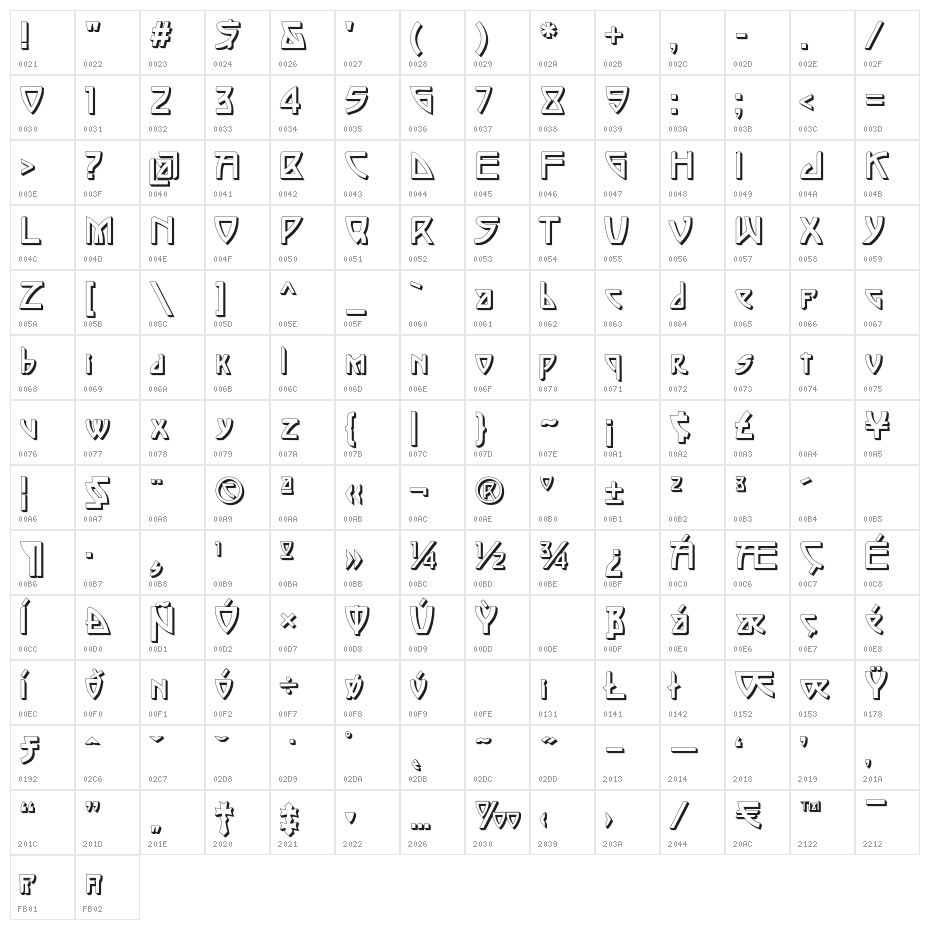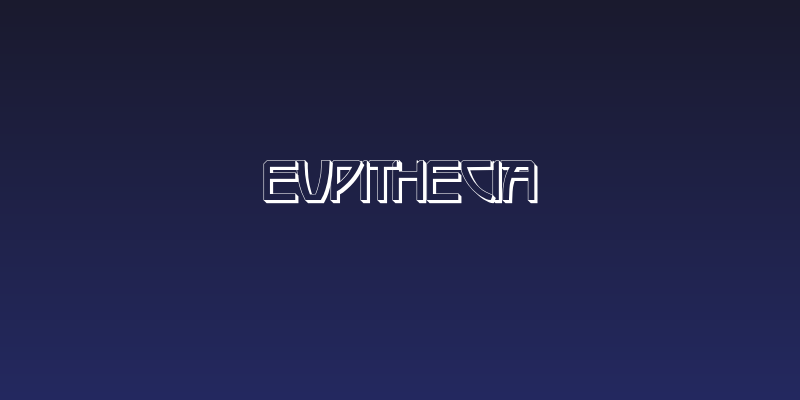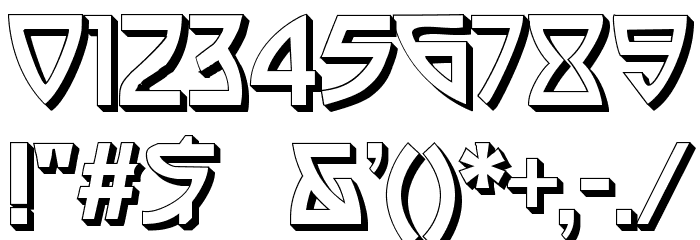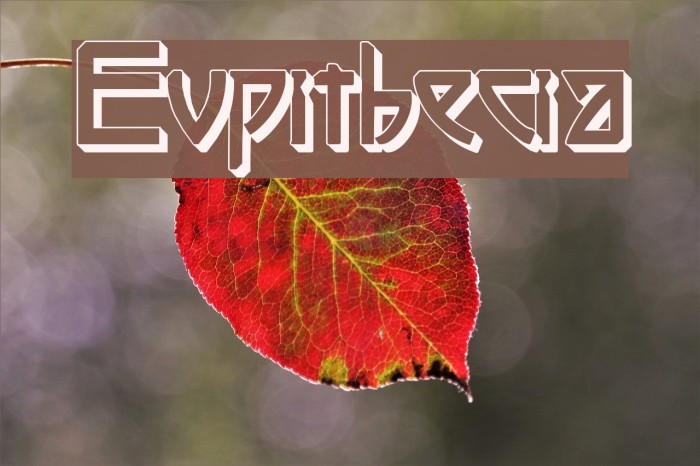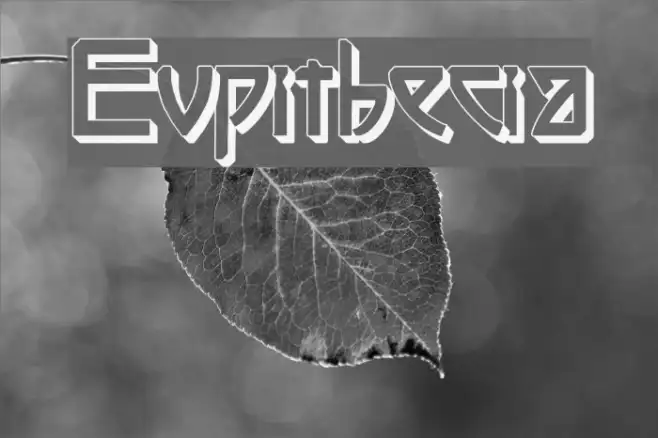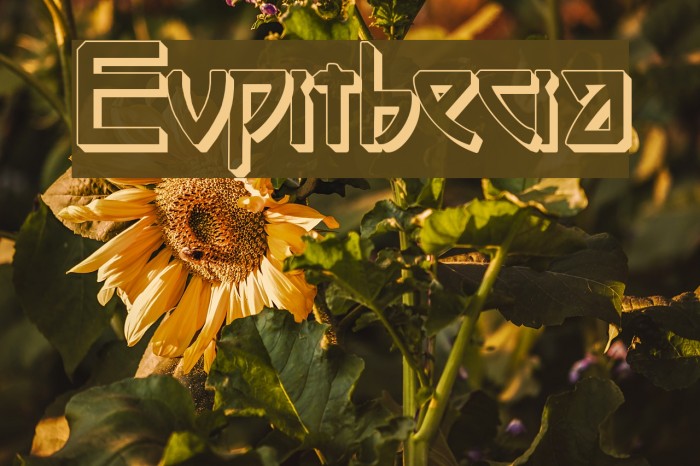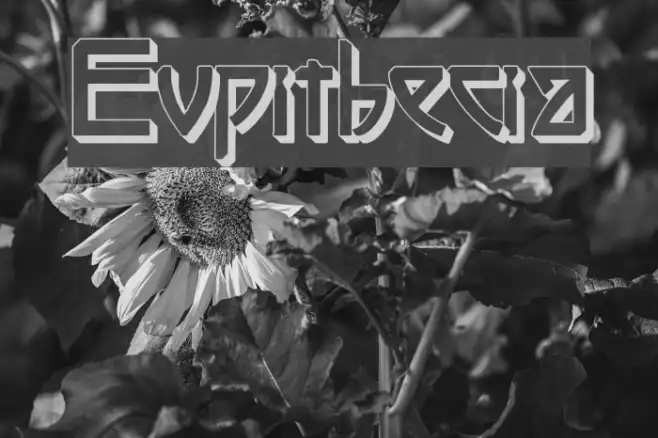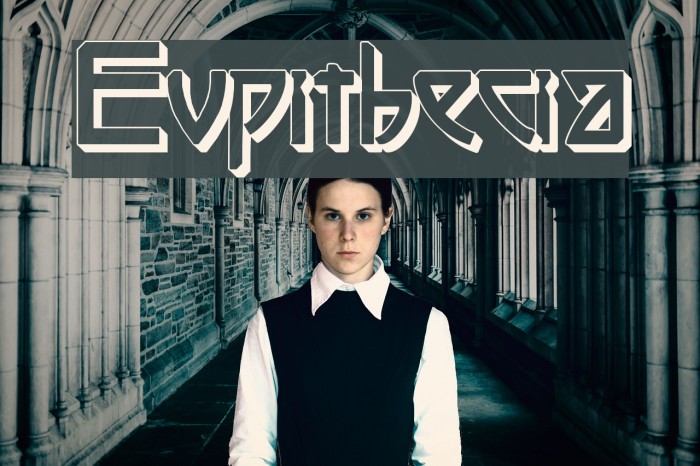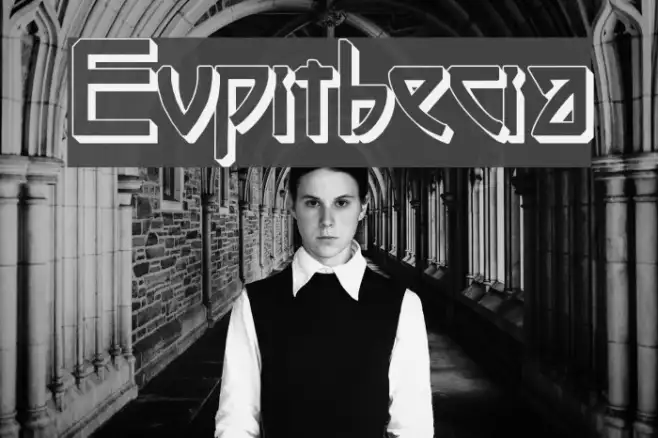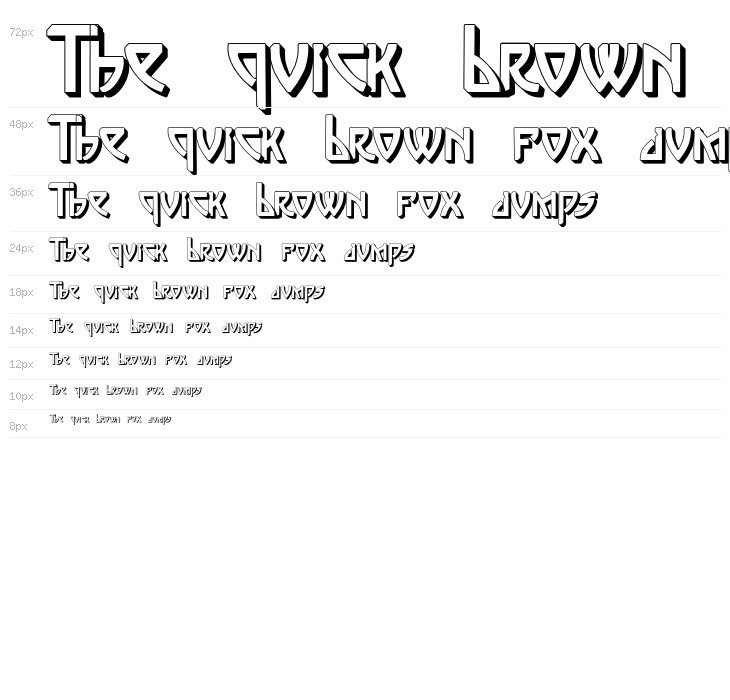
Eupithecia Font
Eupithecia Description
This font features a bold and dynamic style with a three-dimensional effect, created by a shadow that gives depth to each character. The geometric shapes and sharp angles provide a futuristic and edgy appearance, making it stand out. The uppercase and lowercase letters maintain a consistent design, while the numerals and special characters complement the overall aesthetic. The font's unique style is suitable for projects that require a strong visual impact.
| Proposed Projects | Ideal for video game titles, sci-fi movie posters, technology branding, and modern graphic design projects. |